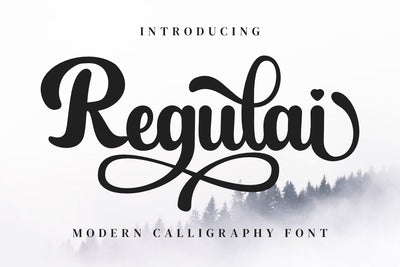
Regulai - Modern Calligraphy Font
Regulai is a beauty modern calligraphy font. font that exudes softness and elegance. With graceful strokes and a feminine touch, this font will elevate any design project to the highest level, be it branding, titles, wedding designs, invitations, signs, logos, labels, and more!